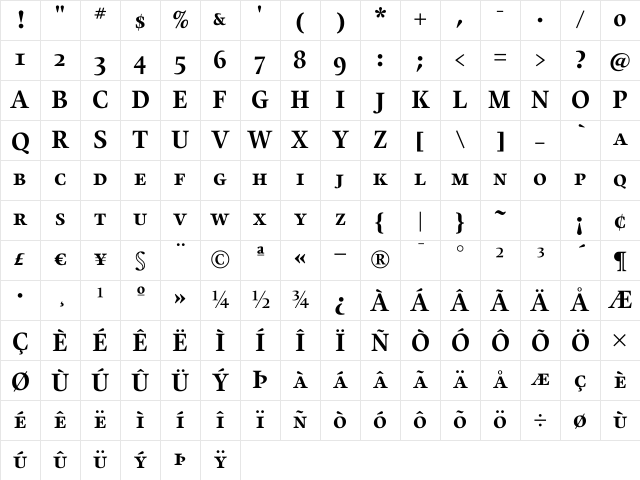
Alias UnionSC Bold Regular
Design Context for Alias UnionSC Bold
Alias UnionSC Bold is a composed and adaptable typeface that performs quietly and consistently across a wide range of design contexts. Its bold stroke weight gives it real presence on the page.
Pro Tip: Use Alias UnionSC Bold in both headline and body roles to test its range before committing to a single application.